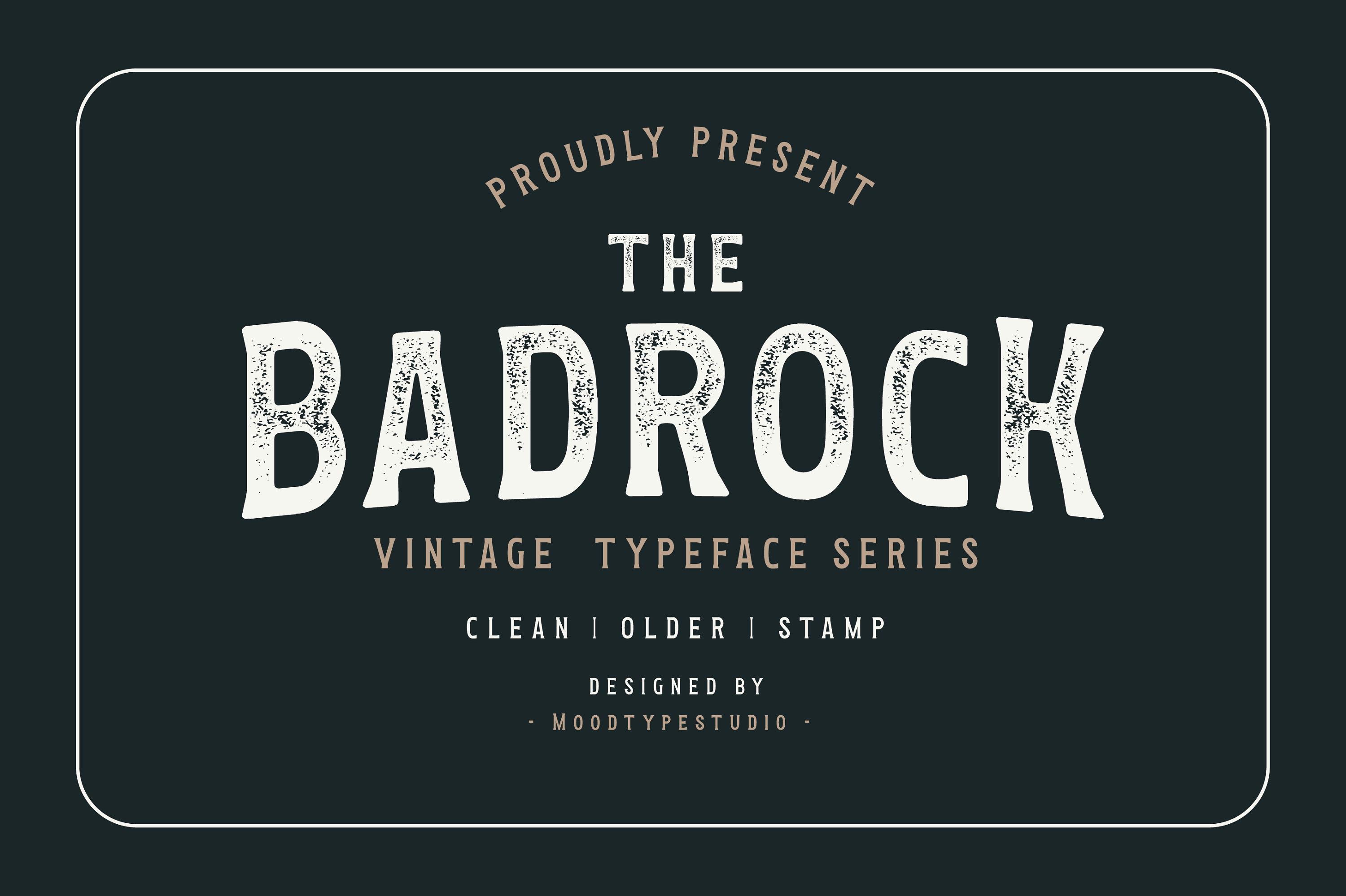
Badrock Vintage Typeface
Badrock is a vintage font with 3 Unique Styles character options including Clean, Older and Stamp. This font is perfect for people looking for vintage aesthetic or logo-type. Suitable for any graphic designs such as branding materials, t-shirt, print, business cards, logo, poster, t-shirt, photography, quotes etc.